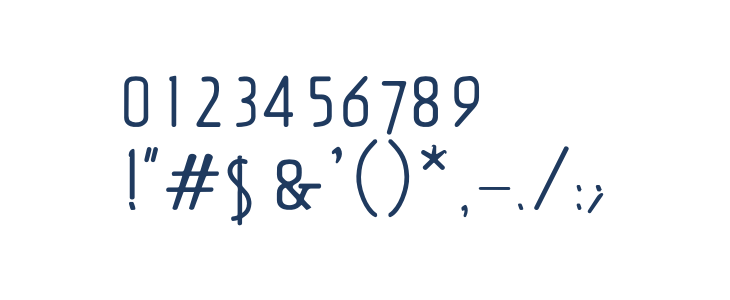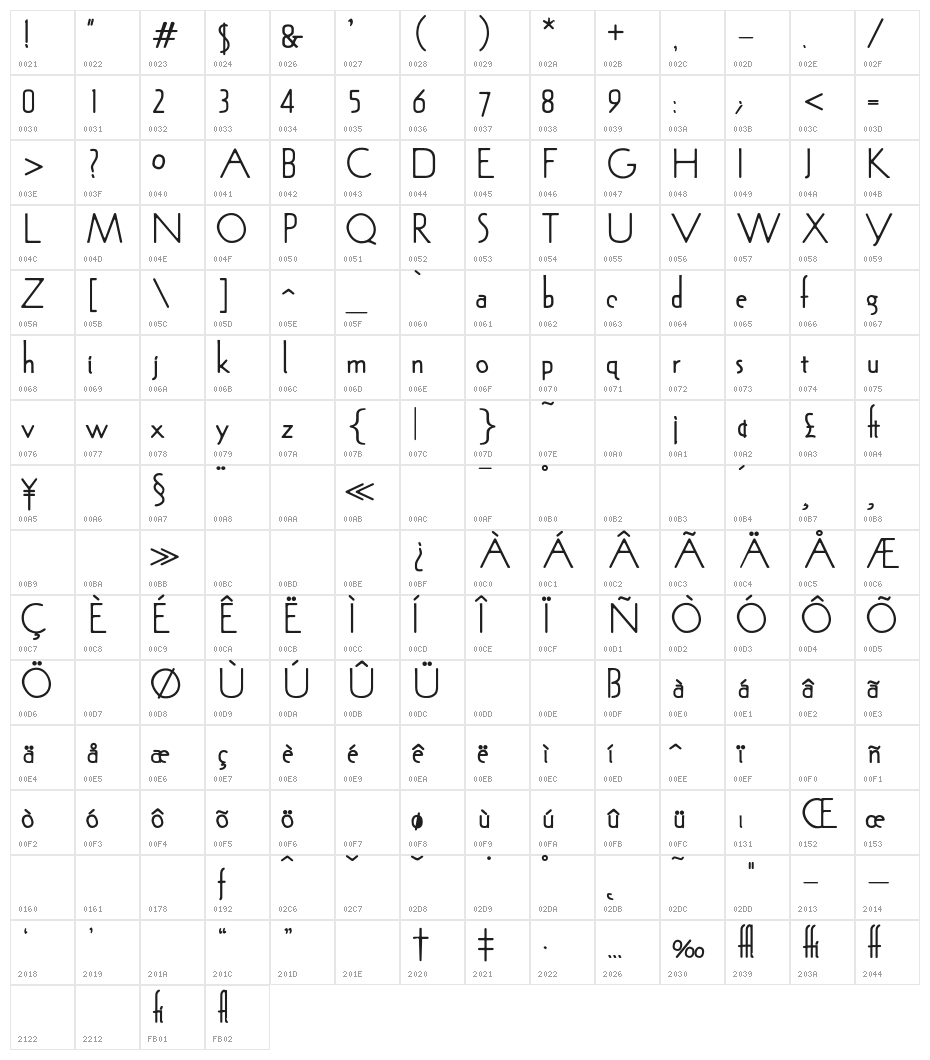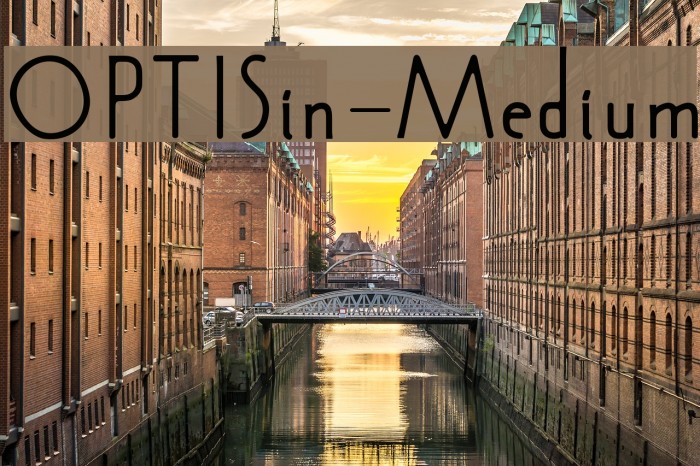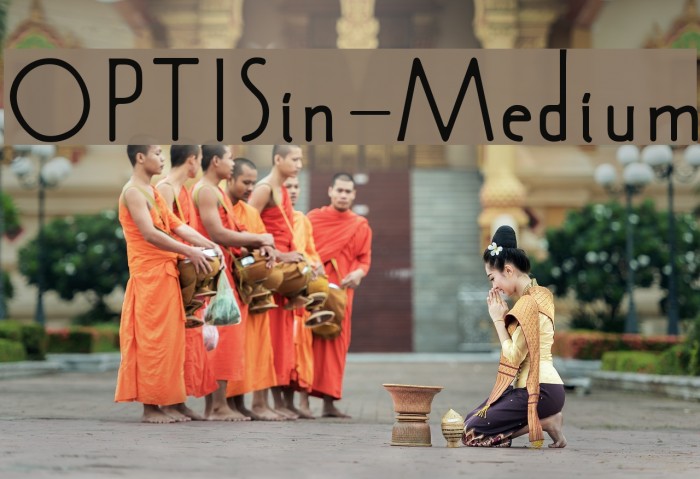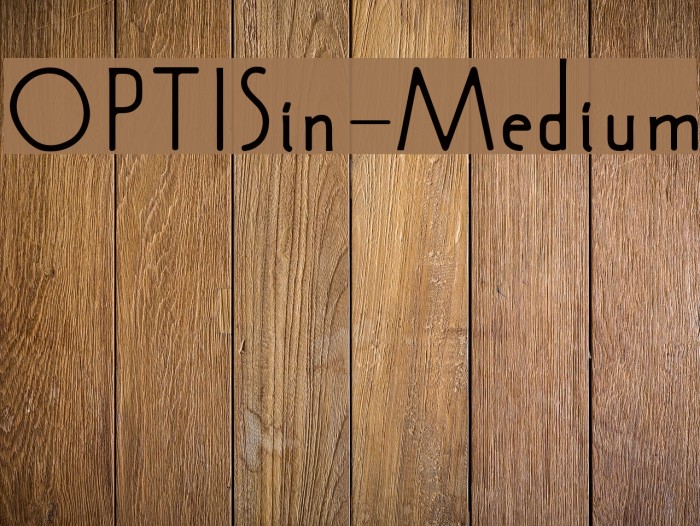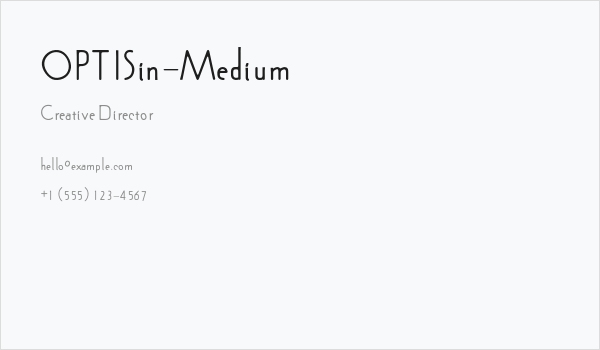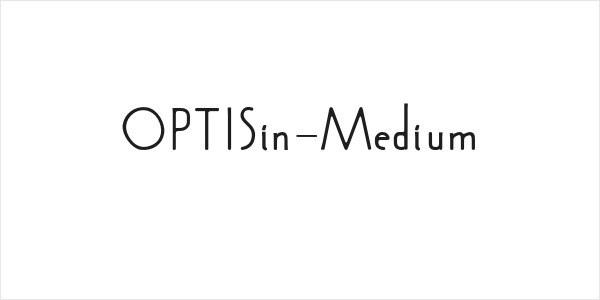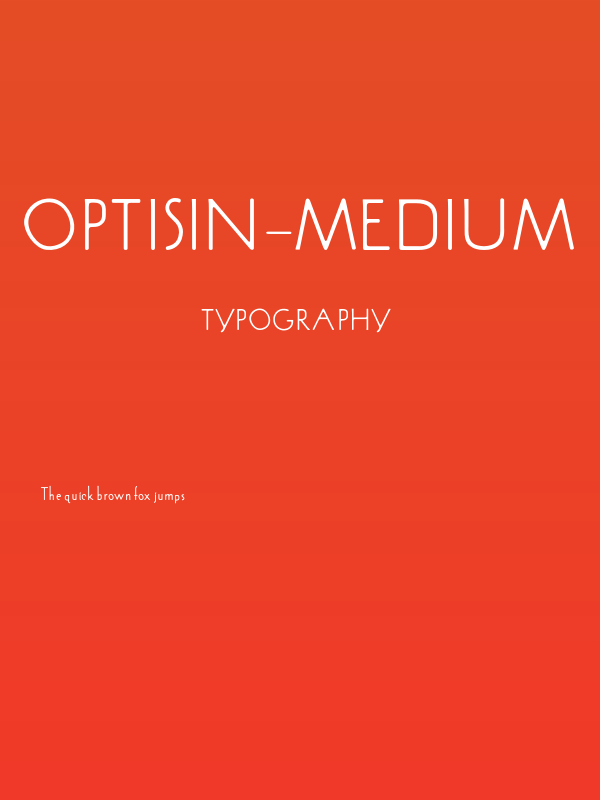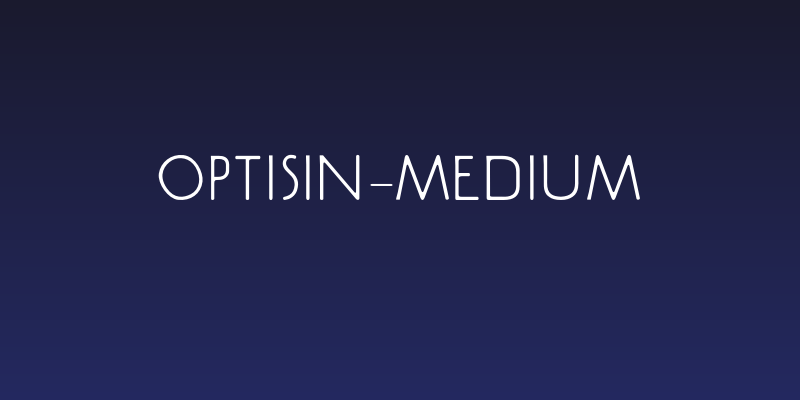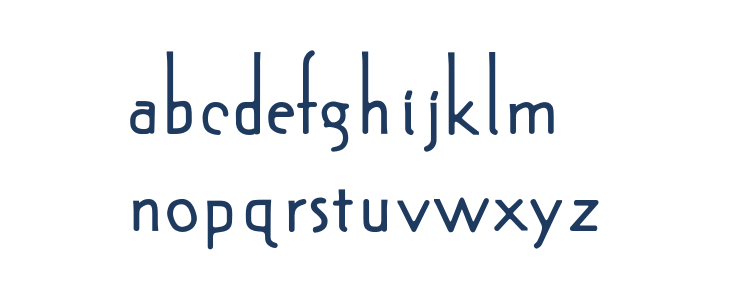
OPTISin-Medium Font
OPTISin-Medium Description
This font features a modern and clean design with a geometric structure. The uppercase letters are tall and narrow, with consistent stroke widths that give a uniform appearance. The lowercase letters maintain a similar geometric style, with some unique characteristics such as the curved tail on the 'g' and the distinctive loop of the 'j'. The numerals are straightforward and align well with the overall style, ensuring readability. Special characters are well-integrated, maintaining the font's clean and modern aesthetic. The font's simplicity and clarity make it versatile for various design applications.